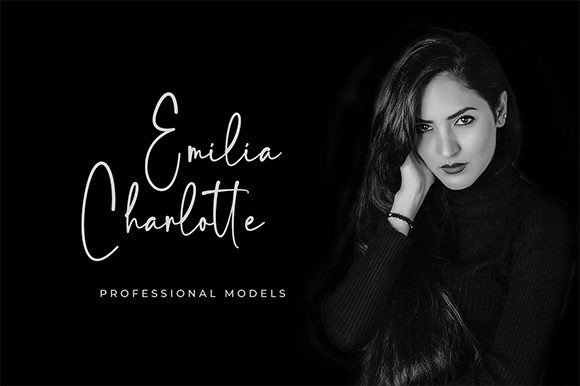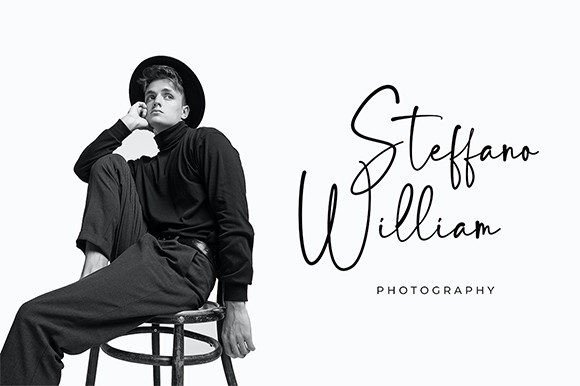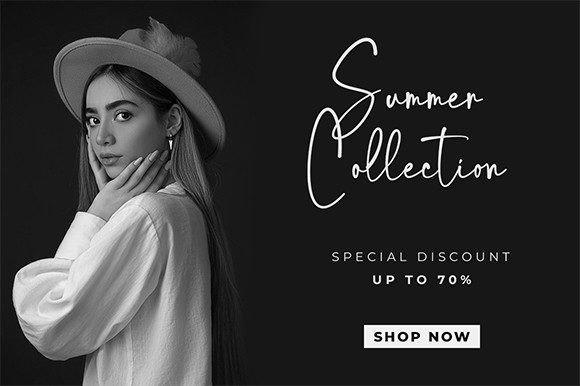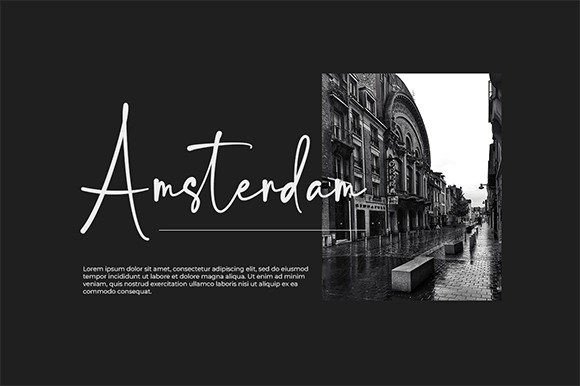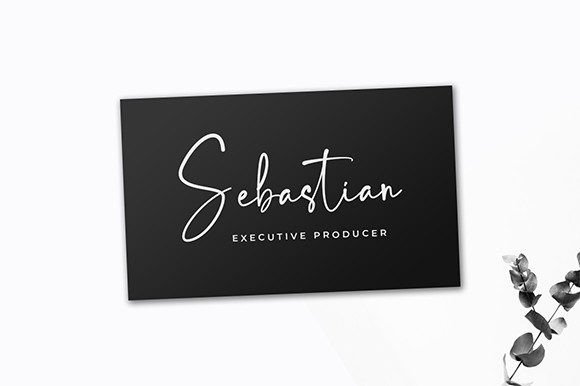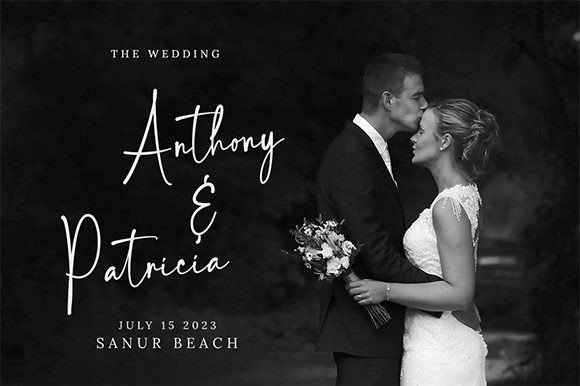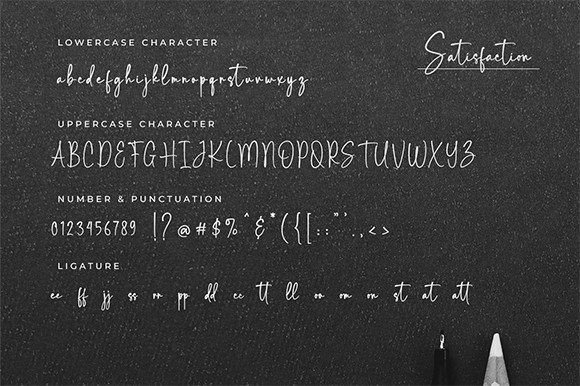
Satisfaction Font
Satisfaction is an elegant and casual handwritten font. This stylish font would look great on your various design ideas. It will add an elegant and natural touch to any of your design projects!